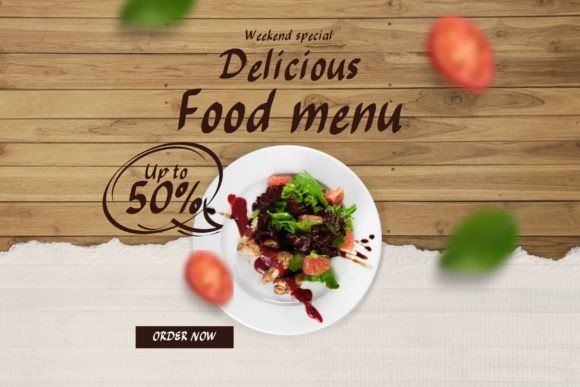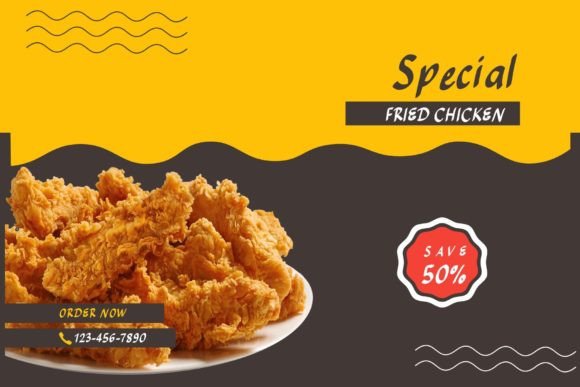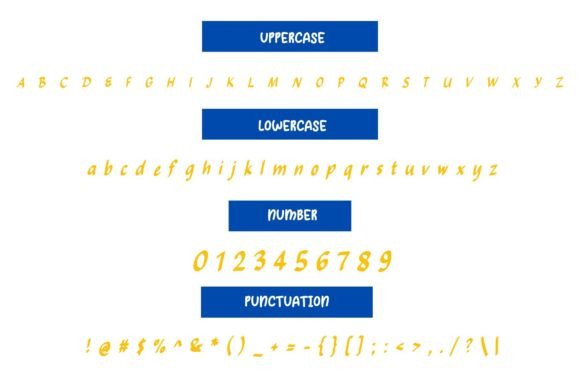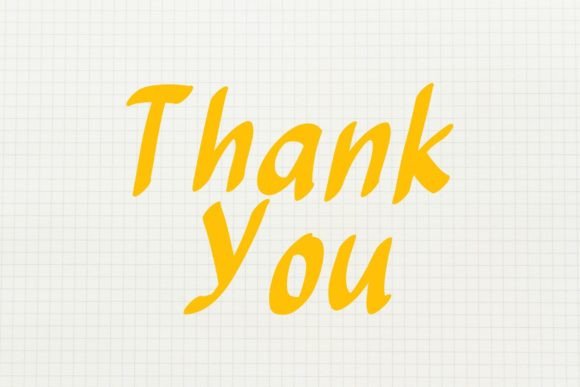
Introducing Amara Font: The Ultimate Handwritten Font for Creative Projects
Are you tired of using the same old fonts for your designs? Do you want to add a touch of playfulness and authenticity to your projects? Look no further than Amara Font, a cute handwritten font that’s perfect for a wide range of creative endeavors. In this article, we’ll explore the features and benefits of Amara Font, and show you how it can elevate your designs to the next level.
What is Amara Font?
Amara Font is a beautiful, handwritten font that’s designed to bring a sense of fun and personality to your designs. With its playful and authentic feel, it’s the perfect choice for anyone looking to add a touch of whimsy to their projects. Whether you’re a designer, crafty DIY enthusiast, or simply someone who loves to create, Amara Font is a versatile and easy-to-use font that’s sure to become a favorite.
Features of Amara Font
So what makes Amara Font so special? Here are just a few of its key features:
- Playful and authentic feel: Amara Font has a unique, handwritten feel that’s perfect for creating designs that feel friendly and approachable.
- Versatile: Amara Font can be used for a wide range of projects, from blog posts and logos to branding, ads, invitations, greeting cards, planners, photo albums, decorations, and more.
- High-quality design: Amara Font is designed to be clear and legible, ensuring that your designs look professional and polished.
Uses for Amara Font
So what can you use Amara Font for? The possibilities are endless! Here are a few ideas to get you started:
- Blog posts: Add a touch of personality to your blog posts with Amara Font, perfect for creating engaging and shareable content.
- Logos and branding: Use Amara Font to create a unique and memorable logo for your business or brand.
- Ads and marketing materials: Stand out from the crowd with Amara Font, perfect for creating eye-catching ads and marketing materials.
- Invitations and greeting cards: Add a personal touch to your invitations and greeting cards with Amara Font.
- Planners and organizers: Use Amara Font to create fun and functional planners and organizers.
- Photo albums and scrapbooking: Add a touch of whimsy to your photo albums and scrapbooking projects with Amara Font.
- Decorations: Use Amara Font to create custom decorations, such as banners, signs, and wall art.
Why Choose Amara Font?
So why choose Amara Font over other fonts? Here are just a few reasons:
- Unique and distinctive: Amara Font has a unique and distinctive feel that’s sure to set your designs apart.
- Easy to read: Amara Font is designed to be clear and legible, making it easy for readers to understand your message.
- Flexible: Amara Font can be used for a wide range of projects, making it a versatile addition to your font collection.
- Fun and playful: Amara Font is the perfect choice for anyone looking to add a touch of fun and playfulness to their designs.
In conclusion, Amara Font is a beautiful and versatile handwritten font that’s perfect for a wide range of creative projects. With its playful and authentic feel, it’s the perfect choice for anyone looking to add a touch of whimsy to their designs. Whether you’re a designer, crafty DIY enthusiast, or simply someone who loves to create, Amara Font is a great addition to your font collection. So why wait? Download Amara Font today and start creating amazing designs!